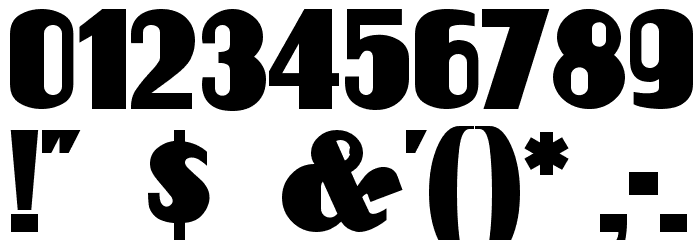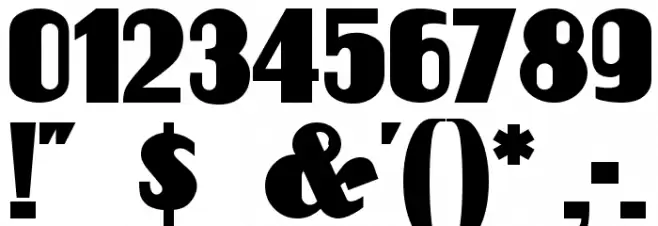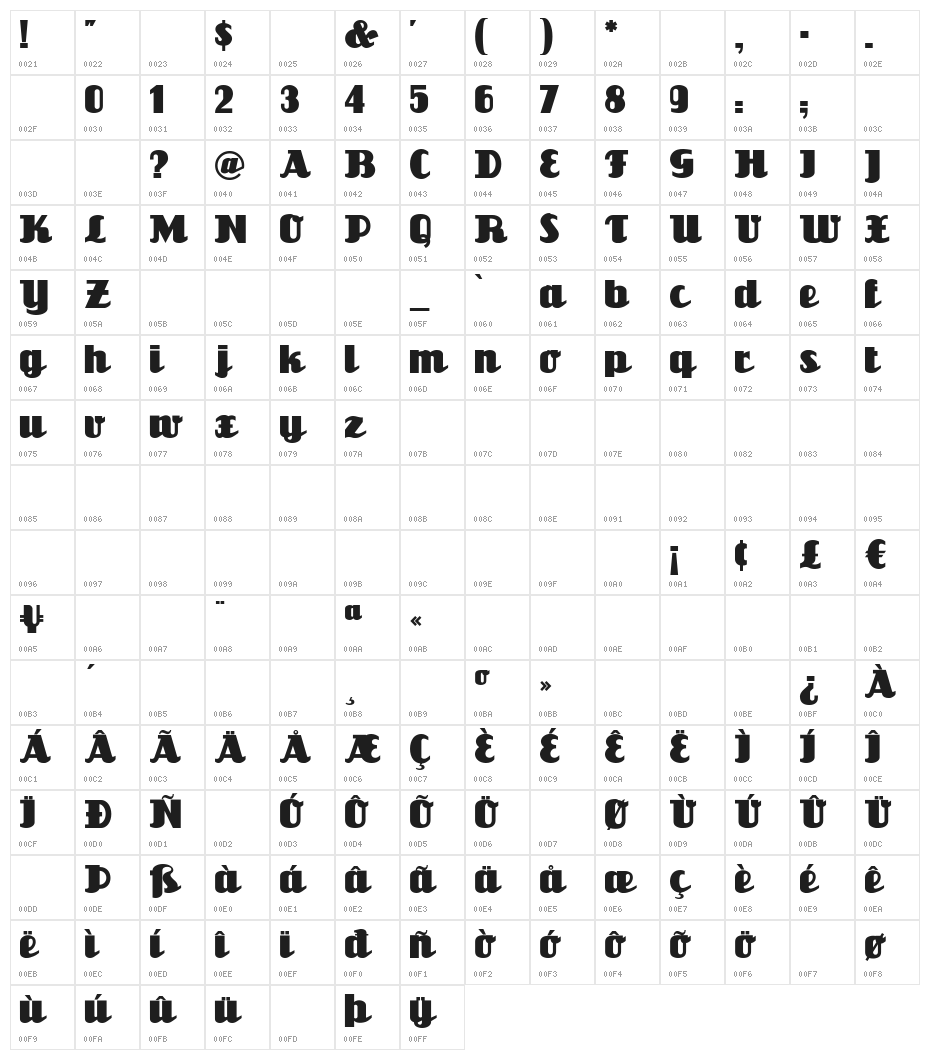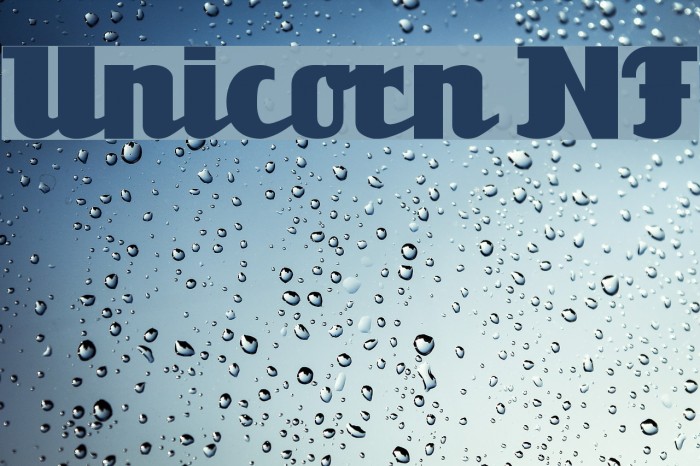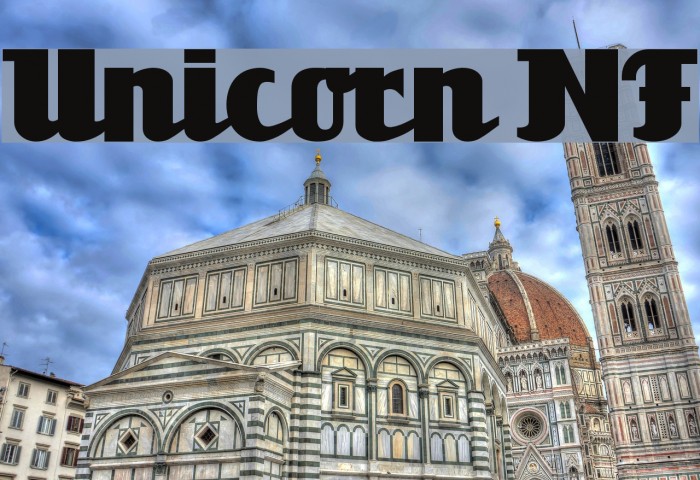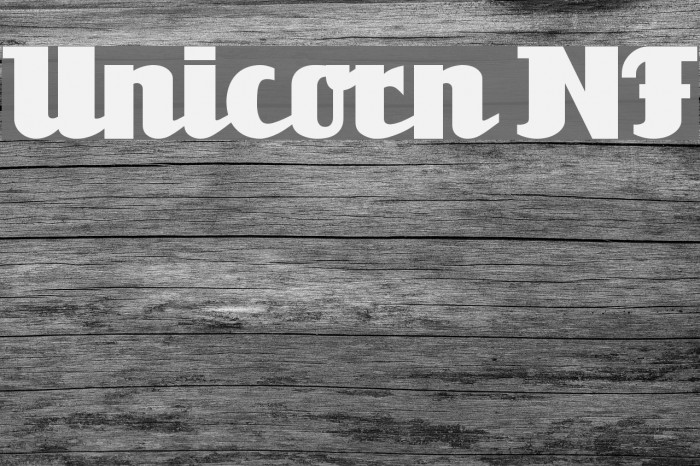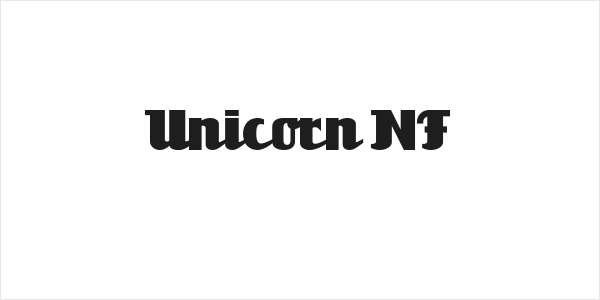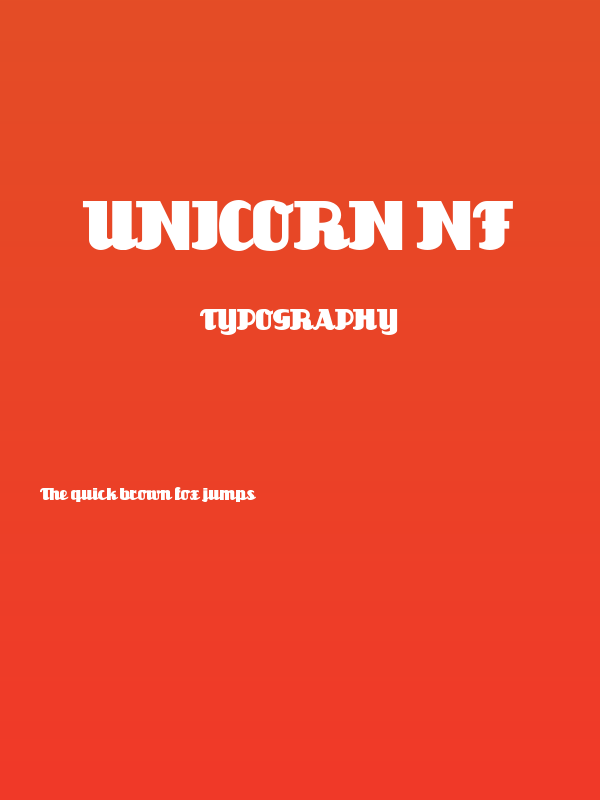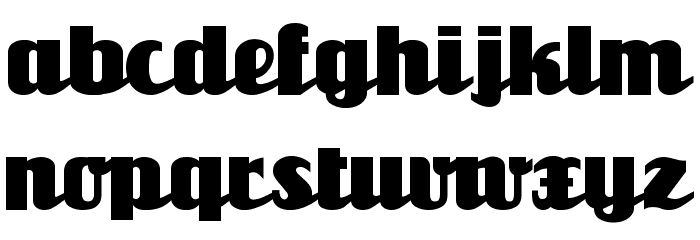
Unicorn NF Font
Unicorn NF Description
This font features bold, dramatic strokes with a strong presence, making it ideal for attention-grabbing headlines. The characters are wide and have a unique, playful style with a hint of vintage charm. The uppercase letters are particularly striking, with a distinct flair that adds personality to any design. The lowercase letters maintain the boldness while offering a slightly softer edge. Numbers and special characters are equally robust, ensuring consistency across all text elements. The font's overall design is both decorative and functional, suitable for projects that require a bold statement.
| Proposed Projects | Ideal for posters, branding, packaging, and any design needing a bold, vintage-inspired look. |